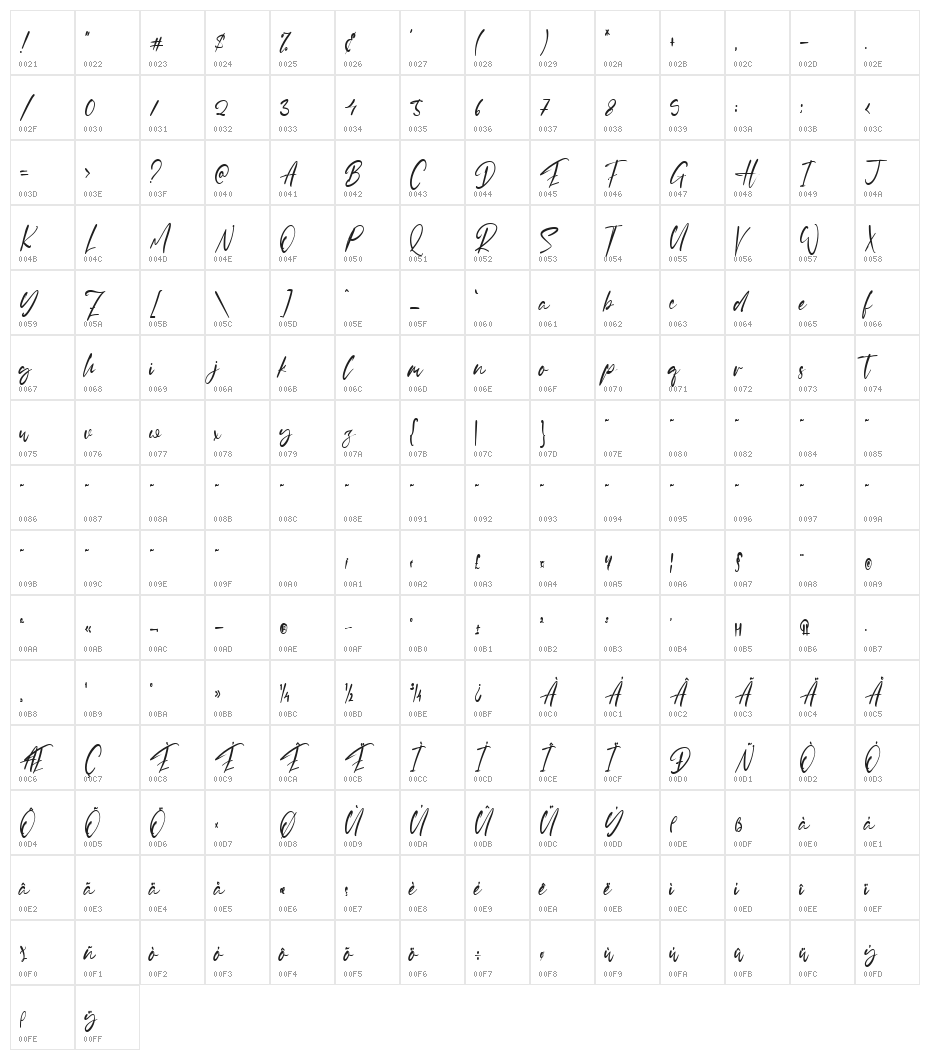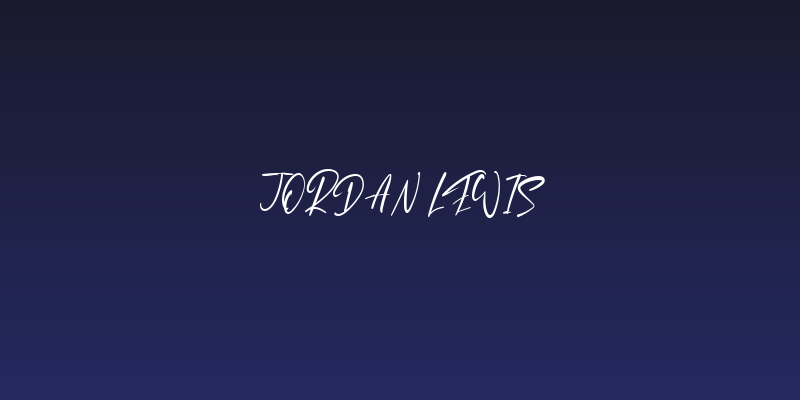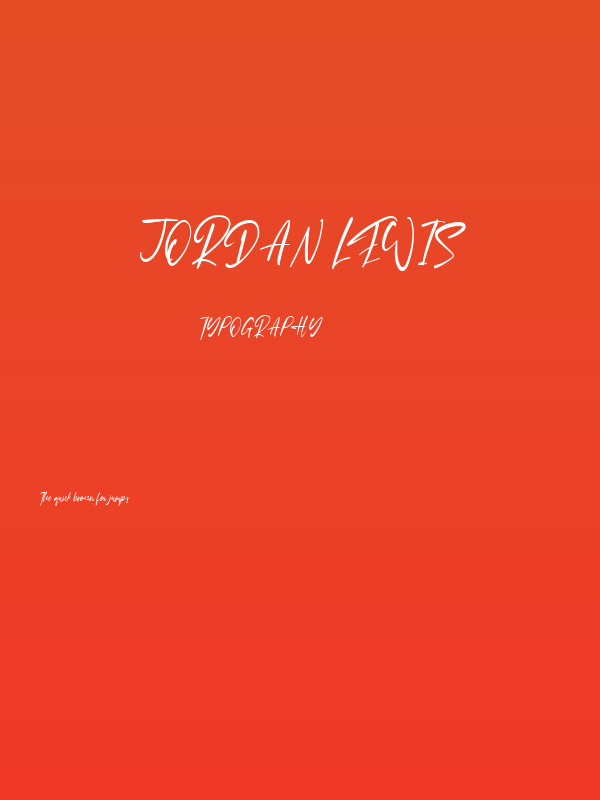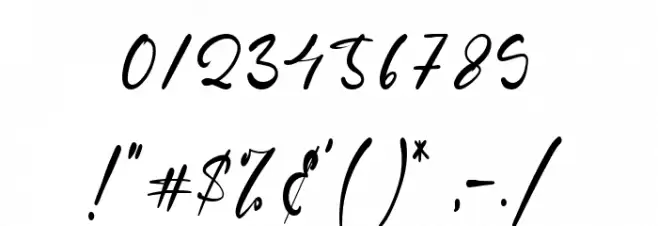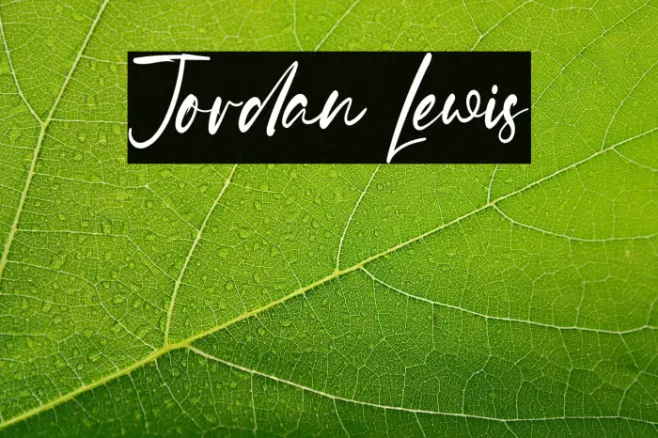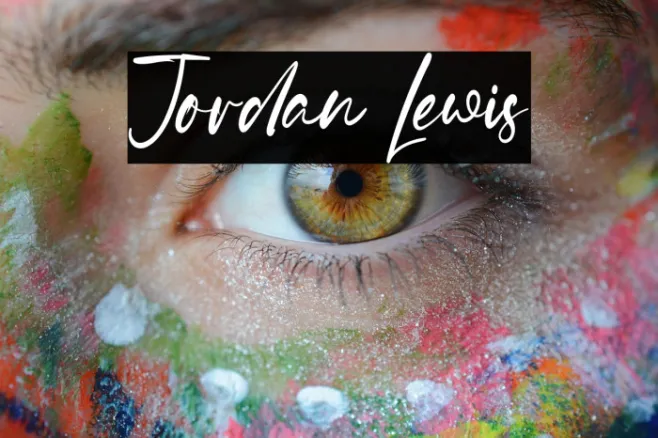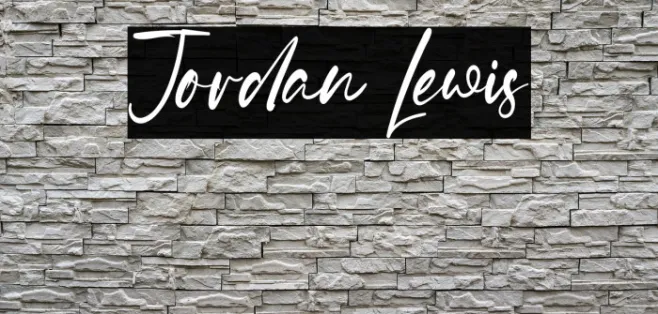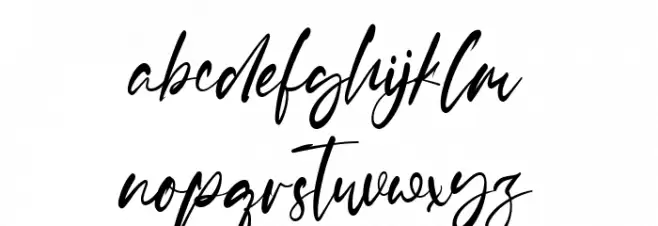
Jordan Lewis Font
Jordan Lewis Description
A dynamic and expressive handwritten script font with a modern flair, featuring fluid strokes and a casual elegance.
| Overall Style | Modern, Decorative |
| Use Case | Logos, Headlines, Display text |
| Proposed Projects | Invitations, greeting cards, branding, and social media graphics. |